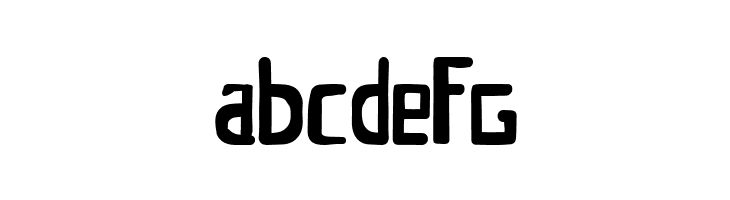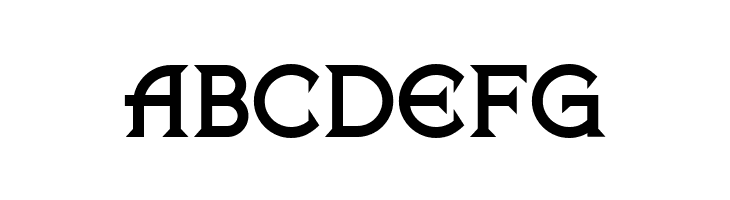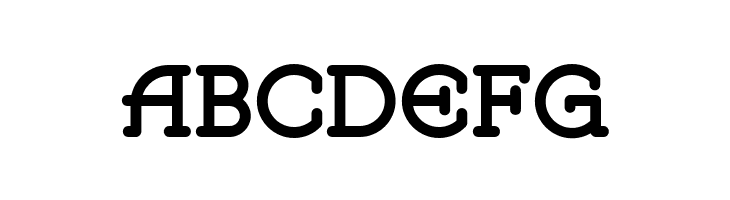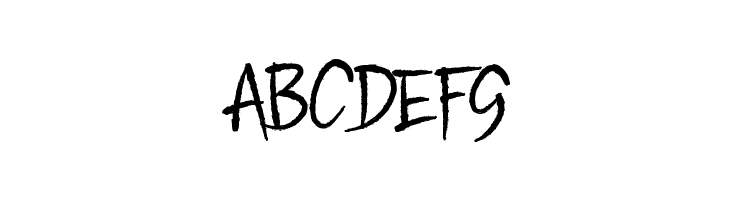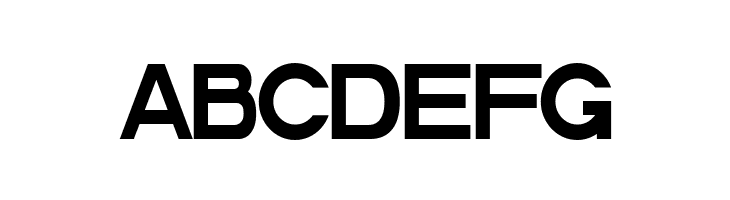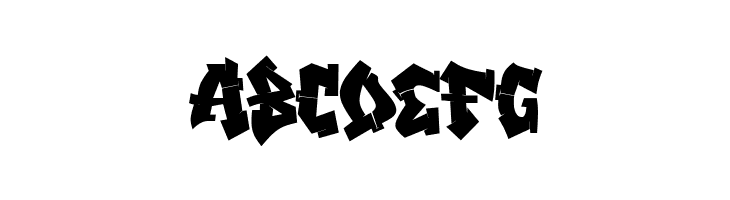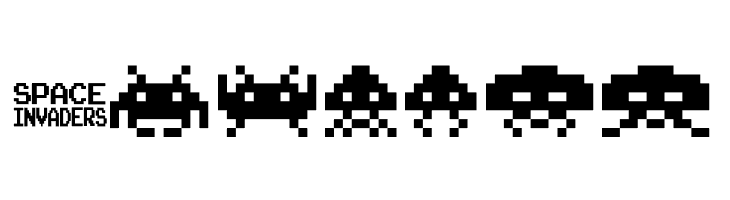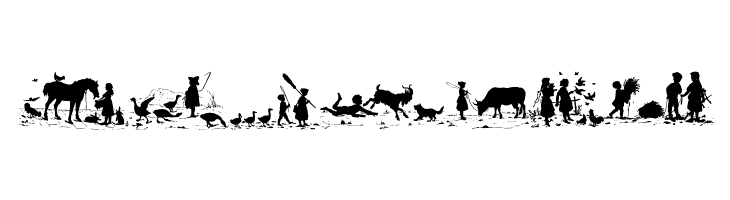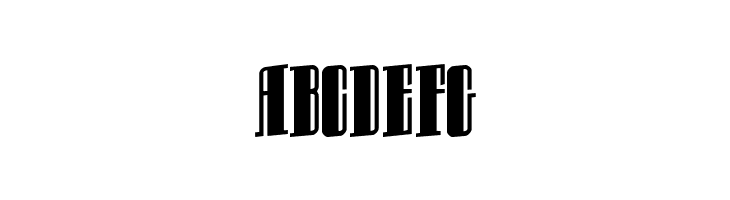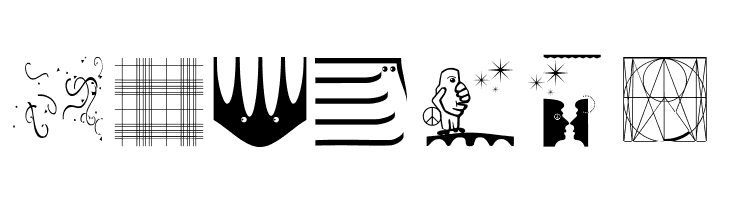
A bold, hand-drawn font with an energetic and playful style.
A bold, geometric sans-serif font with a modern and clean aesthetic.
A bold, graffiti-inspired font with sharp angles and a dynamic, fragmented style.
A lively and dynamic handwritten font with fluid strokes and playful character.
A bold, chiseled font with sharp edges and decorative serifs.
A bold, narrow font with high contrast and a modern, vintage-inspired style.
A bold, angular font with a geometric style, perfect for striking headlines.
A playful, rounded font with bold, approachable characters.
A bold slab serif font with geometric influences and uniform stroke width.
A bold, geometric font with a strong, blocky appearance.
A bold, chiseled font with geometric serifs and a classic, engraved look.
A bold, decorative font with a three-dimensional shadow effect.
A playful, rounded font with bold, smooth curves and consistent stroke width.
A classic Blackletter font with bold, ornate characters and high contrast strokes.
A bold, dynamic font with angular edges and a dramatic slant.
Science fiction-themed pictogram and icon set with technical illustrations.
Decorative font with space-themed elements.
A bold, decorative dingbat font with illustrated character icons.
A dingbat font with sci-fi vehicle illustrations and a bold display title.
Fantasy-themed decorative font with character illustrations as glyphs.
Whimsical silhouette illustrations of children, angels, and animals.
Abstract geometric and illustrative display font with intricate linework.
A bold, hand-crafted font with a rugged, artistic style.
A bold, dynamic italic font with a rugged, adventurous style.
A bold, italic font with a dynamic and edgy style.
A vintage, hand-drawn font with a rustic and distressed appearance.
A playful, casual handwritten font with dynamic, irregular strokes.